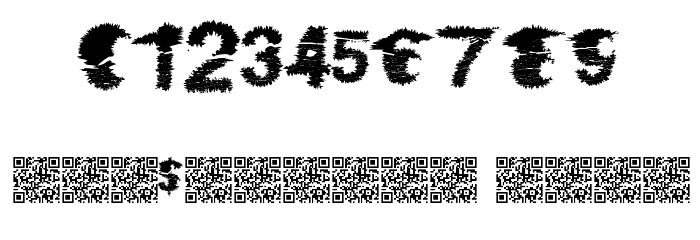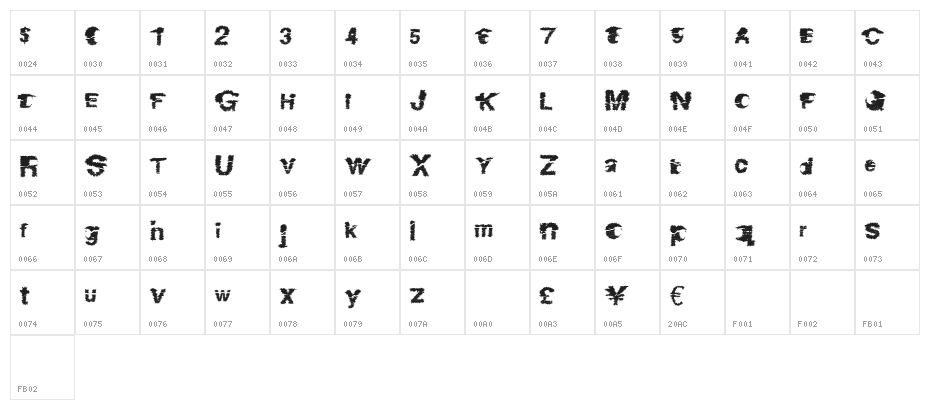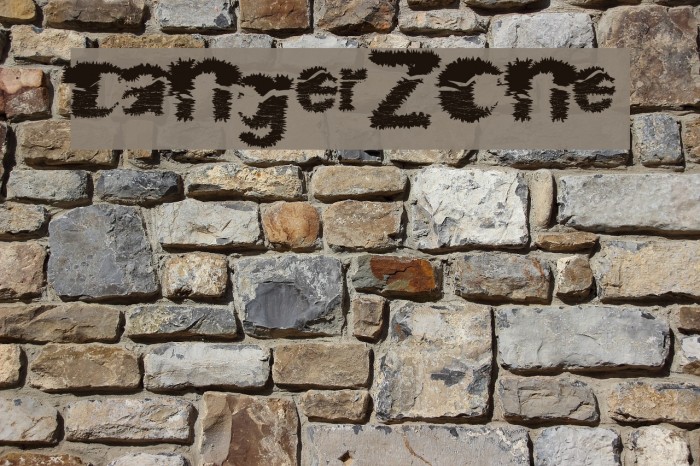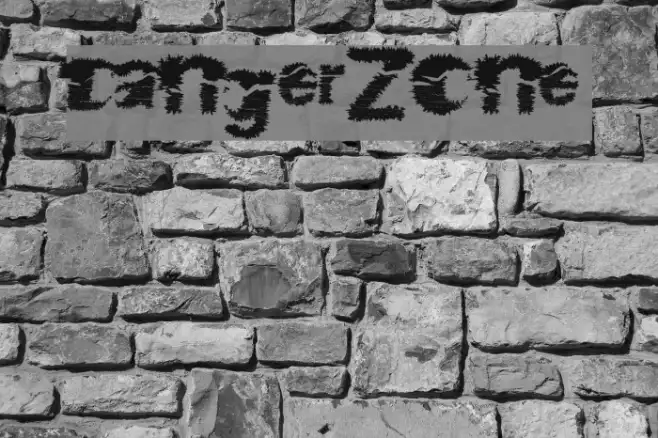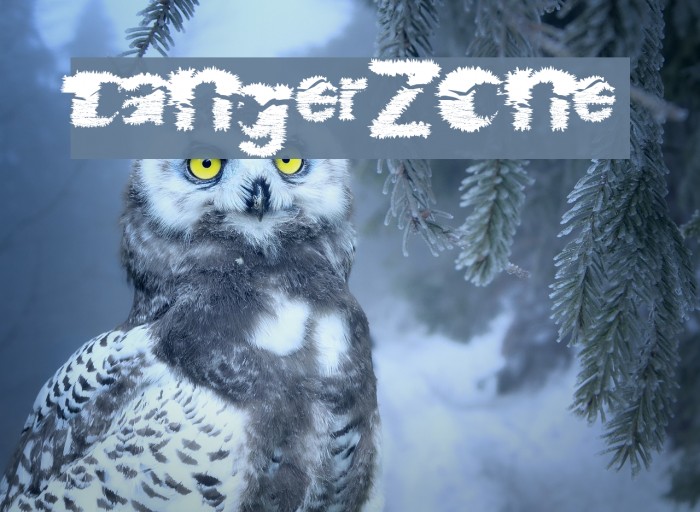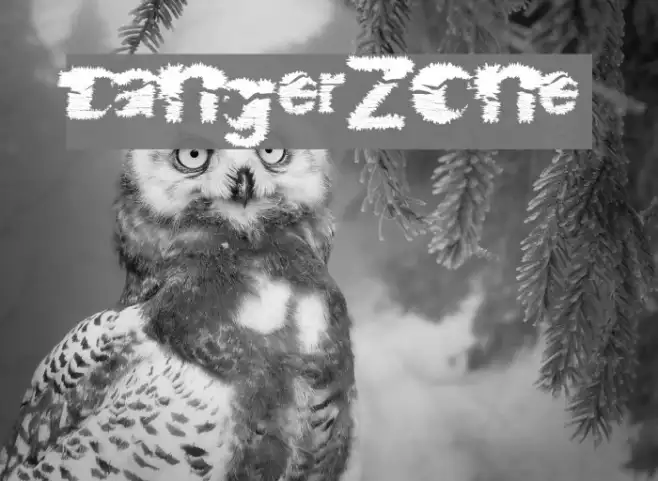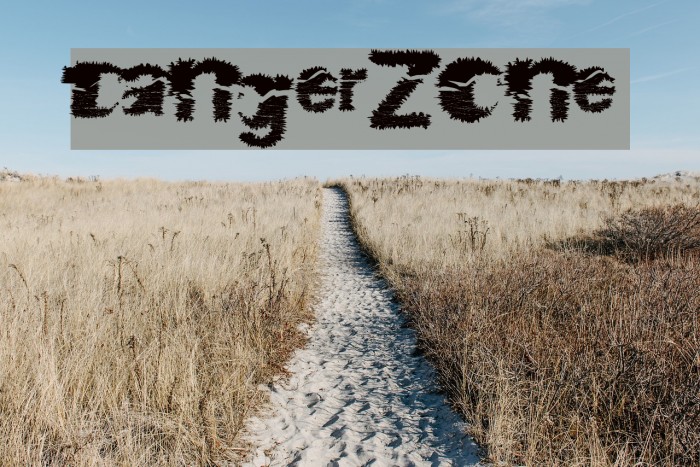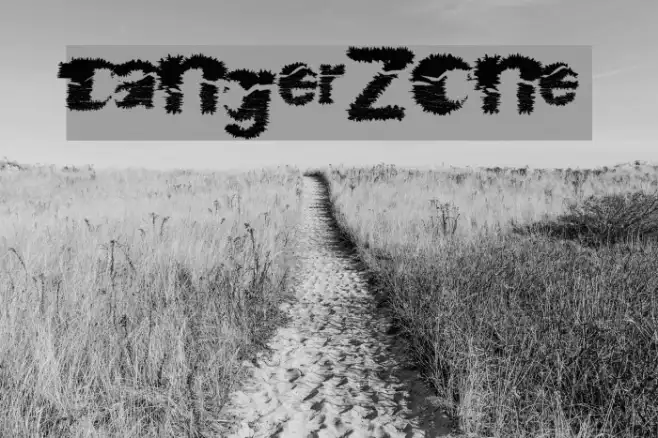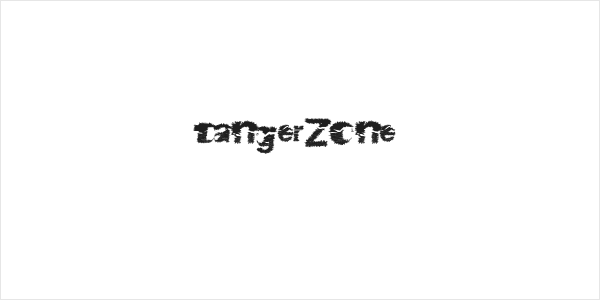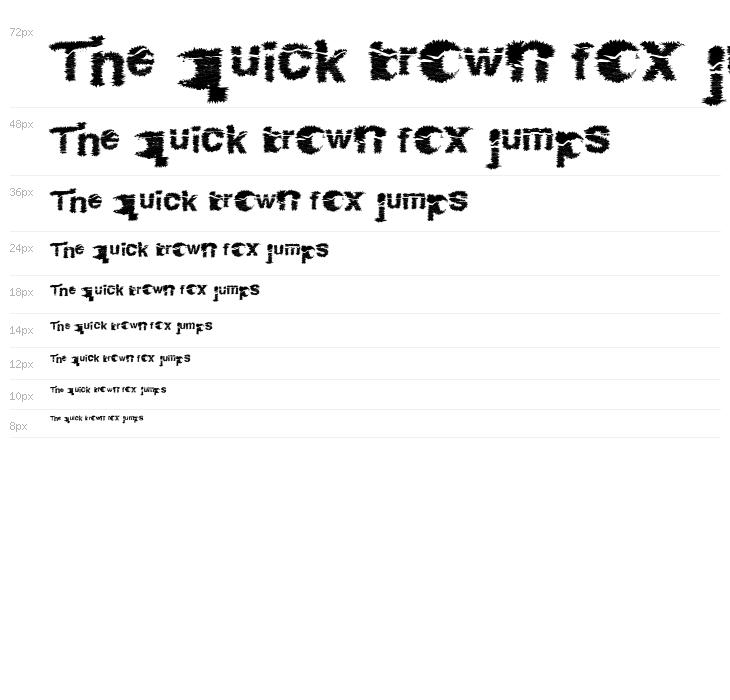
DangerZone Font
DangerZone Description
This font features a highly distinctive and edgy design, characterized by its jagged, rough edges that give it a chaotic and energetic appearance. The letters appear as if they are vibrating or in motion, creating a sense of urgency and intensity. This style is reminiscent of distressed or grunge aesthetics, making it stand out with its bold and aggressive look. The uppercase and lowercase letters maintain this dynamic texture, while the numbers and special characters follow suit, ensuring a cohesive visual theme throughout. The font's unique style makes it ideal for projects that require a strong, impactful visual statement.
| Overall Style | Modern, Grunge |
| Proposed Projects | Ideal for music album covers, event posters, extreme sports branding, or any project needing a bold, edgy look. |